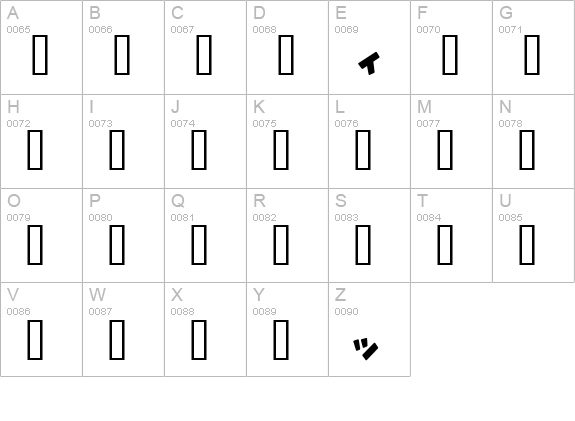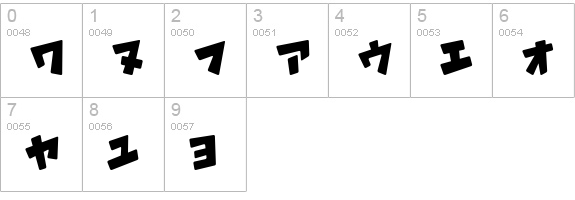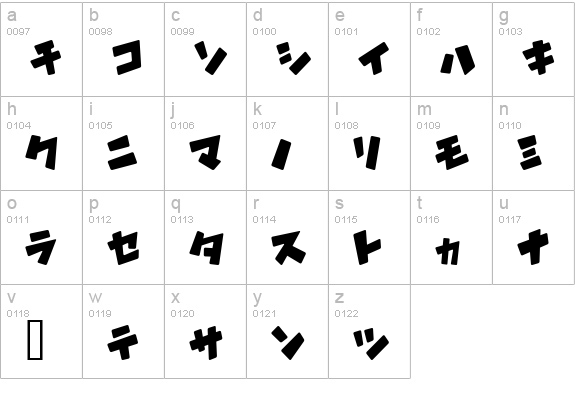
I2DragonBird Font Details
Introducing the mesmerizing I2DragonBird font - a captivating typeface that is sure to leave a lasting impression on all who lay eyes upon it. This font is a unique fusion of elegance and creativity, perfectly combining intricate details with a modern twist. I2DragonBird is not just your average font; it is a work of art that has been meticulously crafted to bring your designs to life. With its bold yet graceful strokes, this font exudes confidence and sophistication, making it the perfect choice for a wide range of creative projects. But what sets I2DragonBird apart from other fonts is that it is completely free! Yes, you read that right - this stunning font can be downloaded without any cost at FontsMarket.com. We believe that creativity should be accessible to all, and by offering I2DragonBird for free, we are making sure that designers and enthusiasts alike can enjoy its beauty without any constraints. Whether you're creating eye-catching posters, captivating logos, or elegant wedding invitations, I2DragonBird will effortlessly elevate your designs to new heights. Its versatility allows it to seamlessly adapt to various design styles, making it a go-to choice for both professionals and beginners. So why wait? Experience the enchantment of I2DragonBird for yourself by downloading it for free at FontsMarket.com. Let this font unleash your creativity and add a touch of magic to your next project.